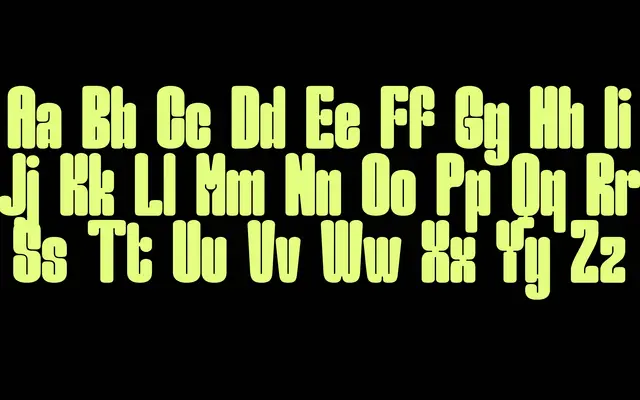
Good Girl
A heavy display typeface by Marion Bisserier drawing on protest print aesthetics, available in three widths from Regular to Extra Condensed.
Designed by Marion Bisserier, the typeface takes visual cues from Guerrilla Girls prints and protest art, using dense counters and tight spacing across all three widths to achieve maximum typographic coverage. The compact nature of each cut makes it well suited to headlines, posters and any context requiring a loud, assertive presence. Latin Standard A diacritics are included across a 220-glyph set covering uppercase, lowercase, numerals and punctuation.
A heavy, condensed display typeface with dense counters and tight spacing, designed explicitly for headline and poster use with a bold typographic personality rooted in protest art aesthetics.